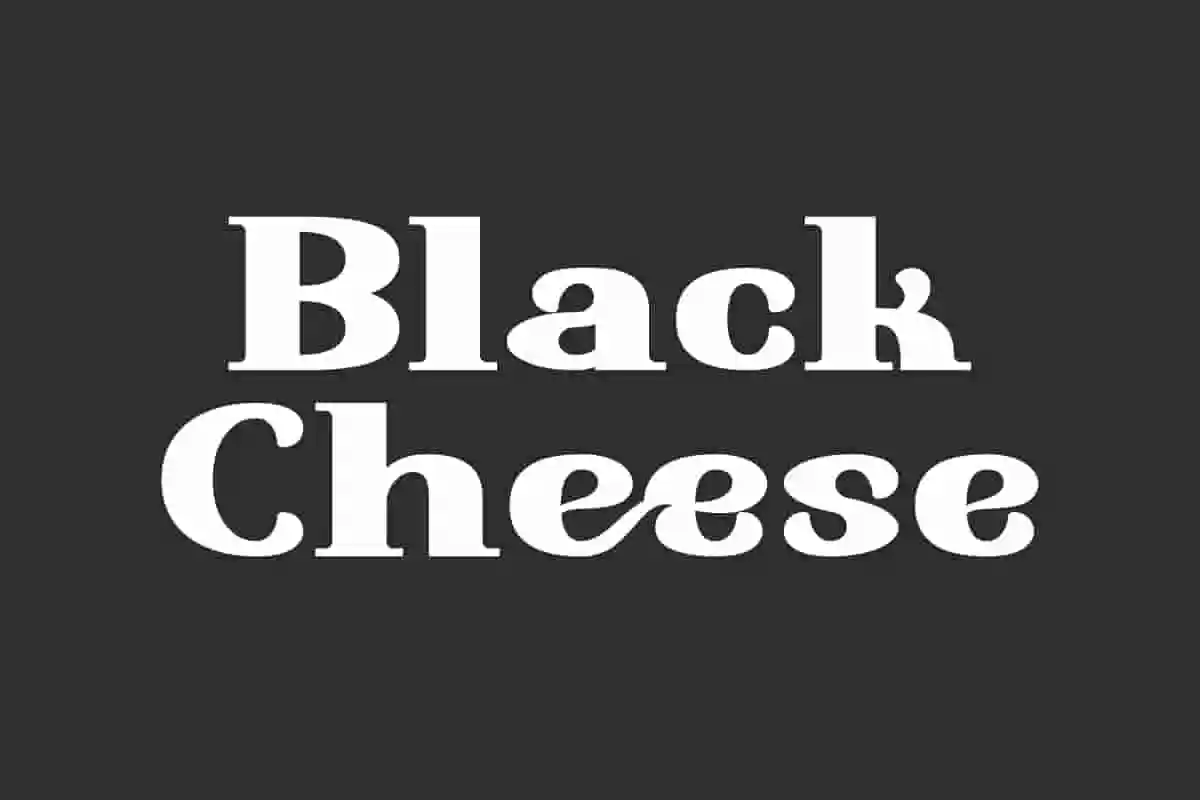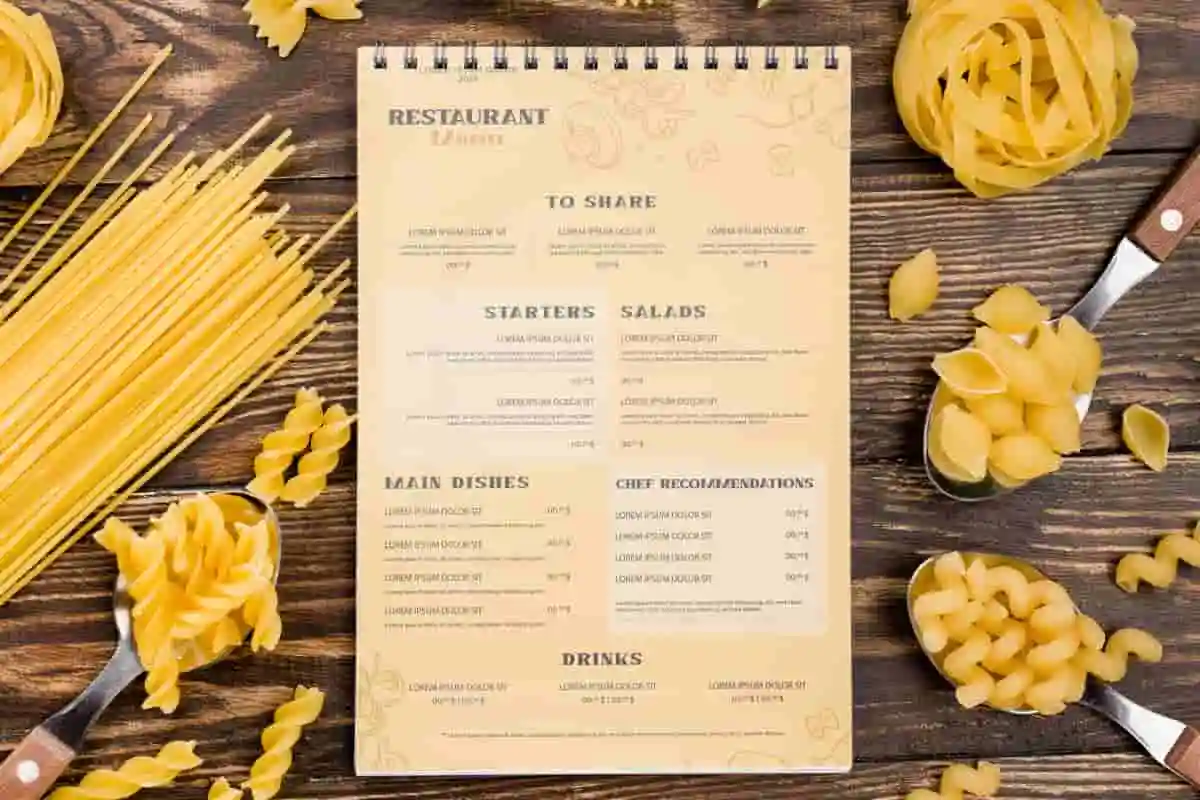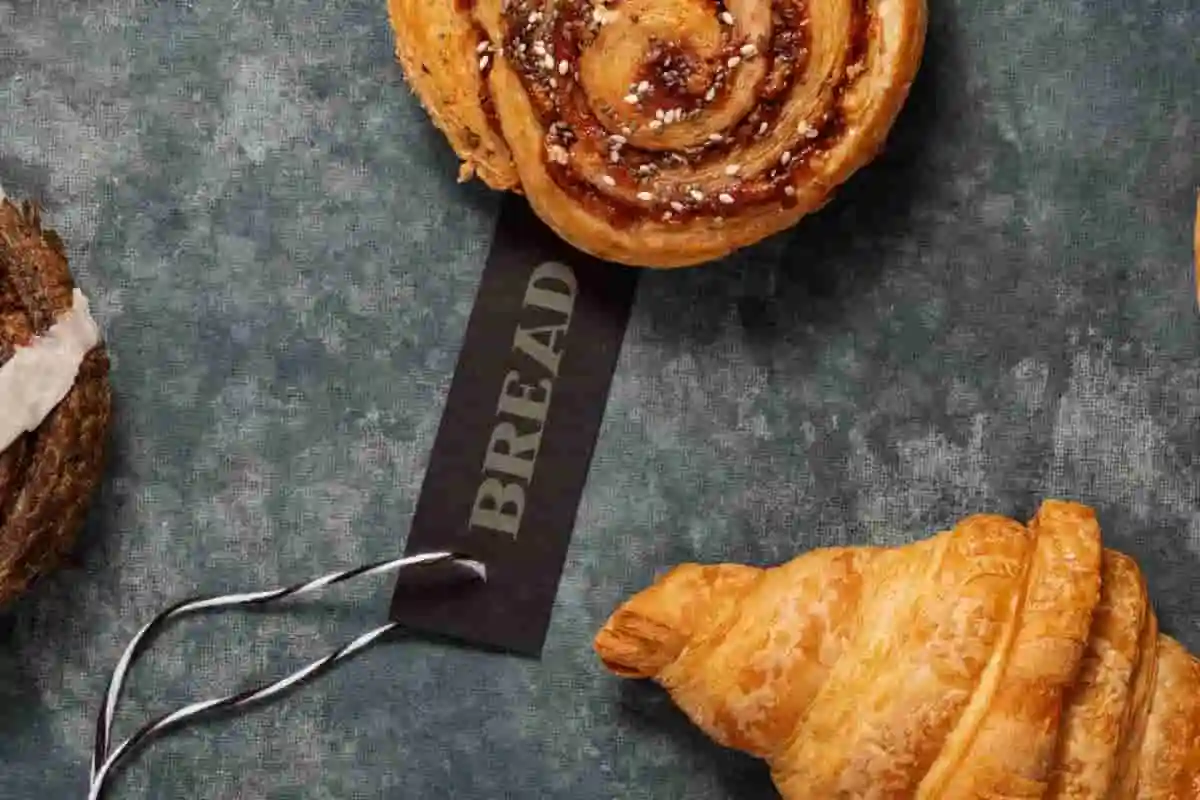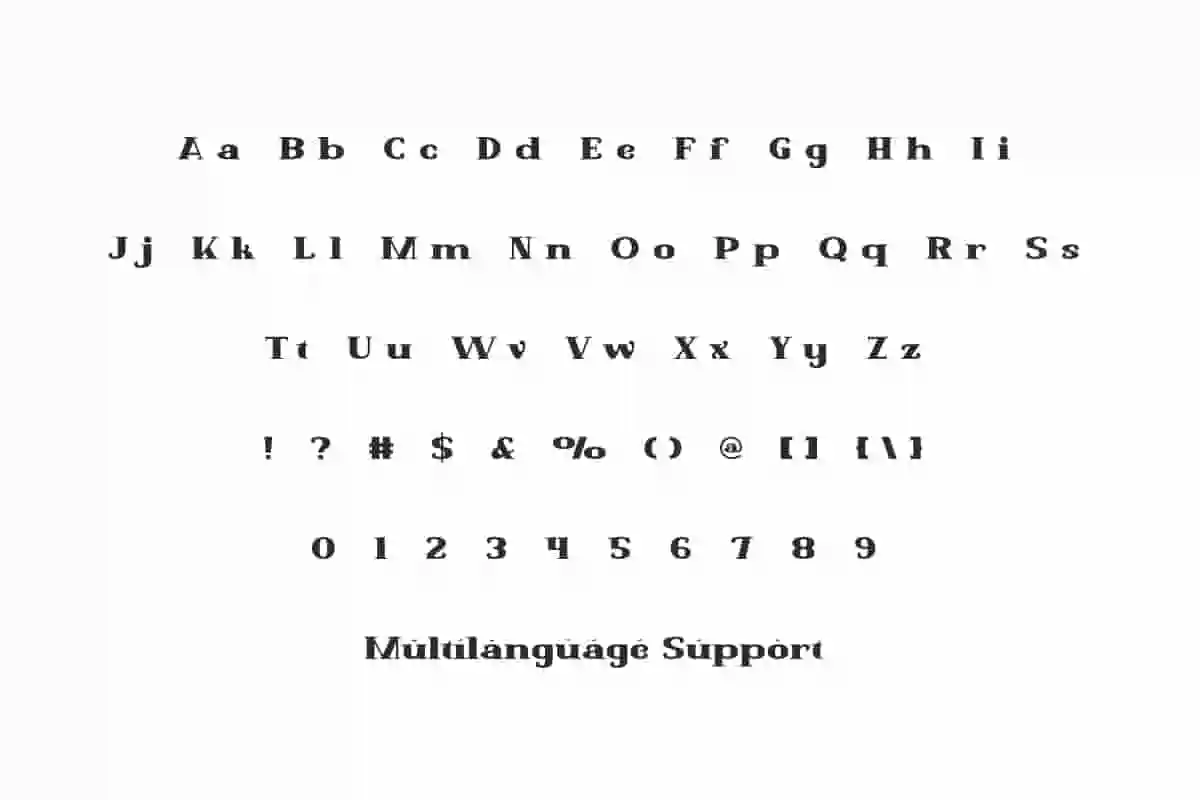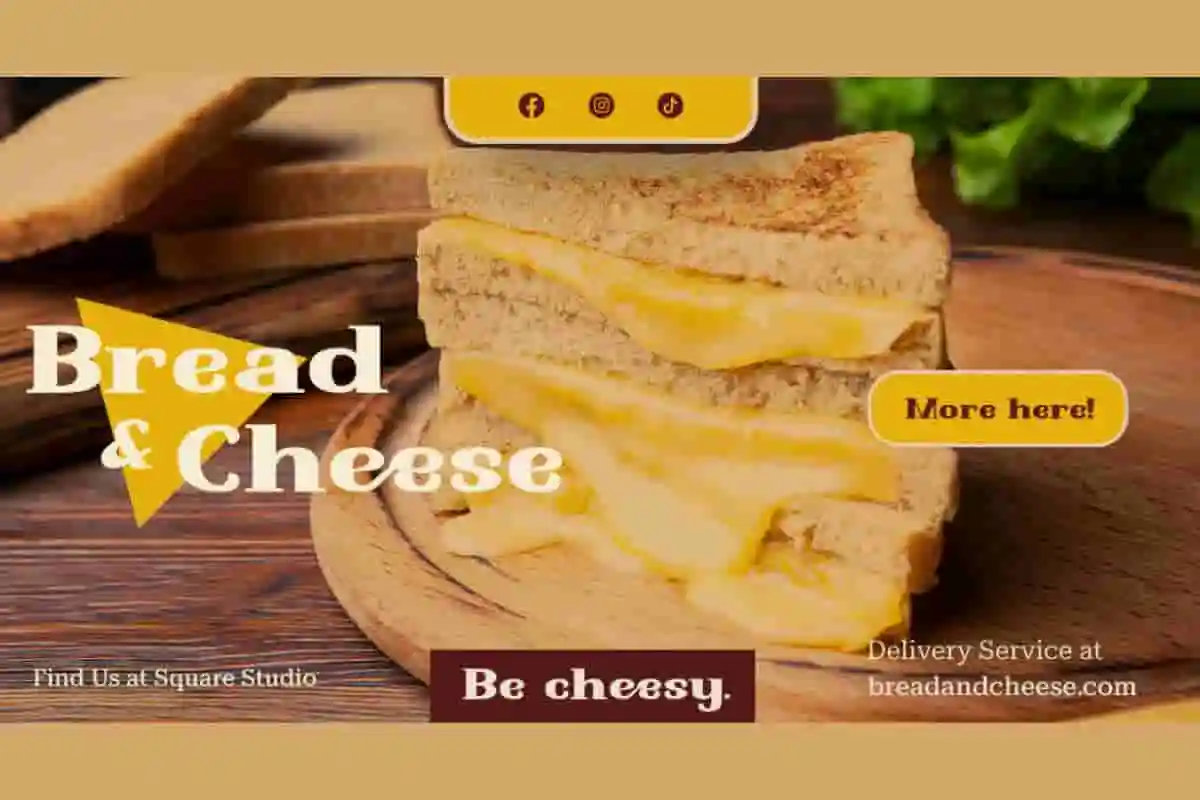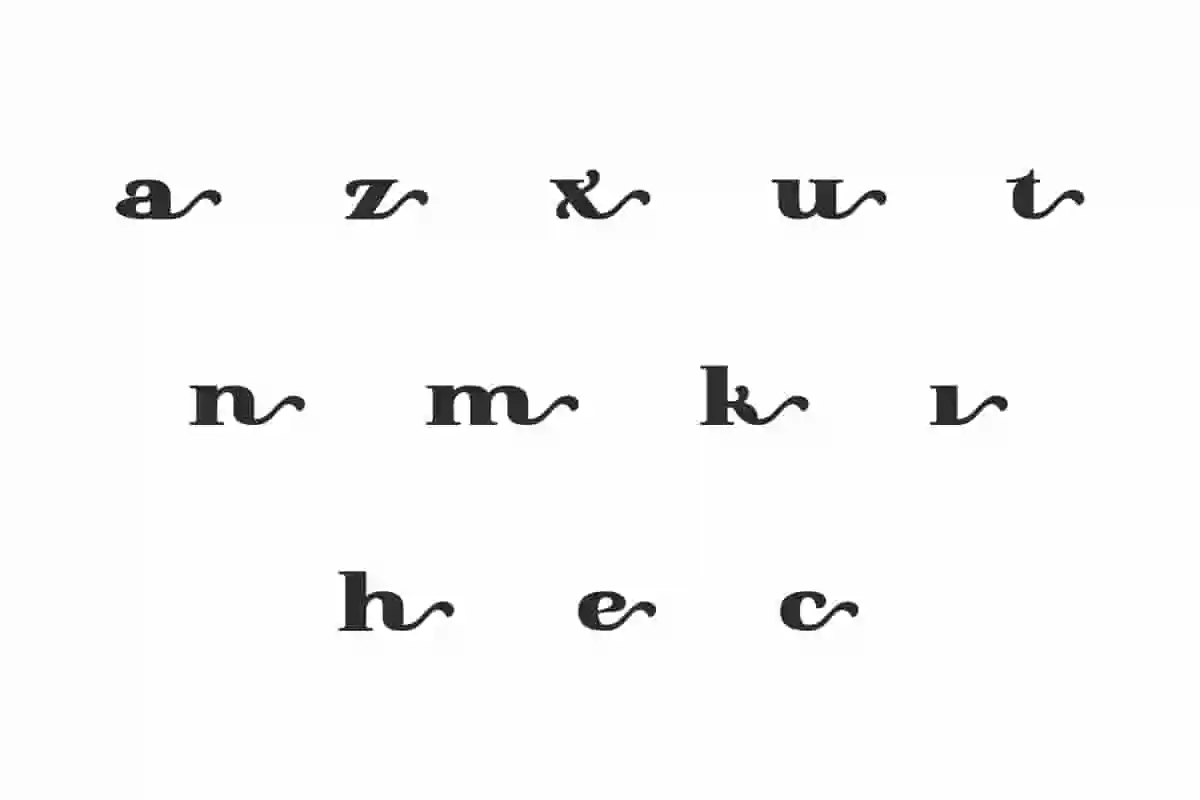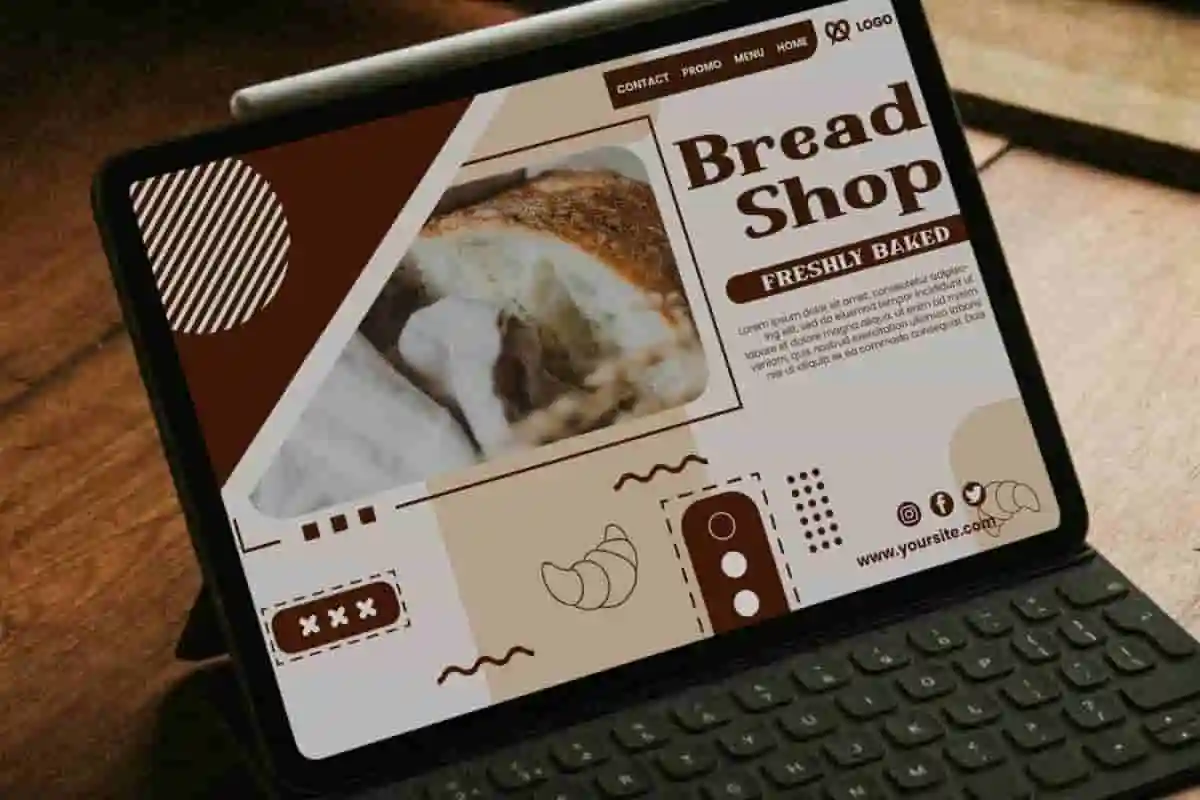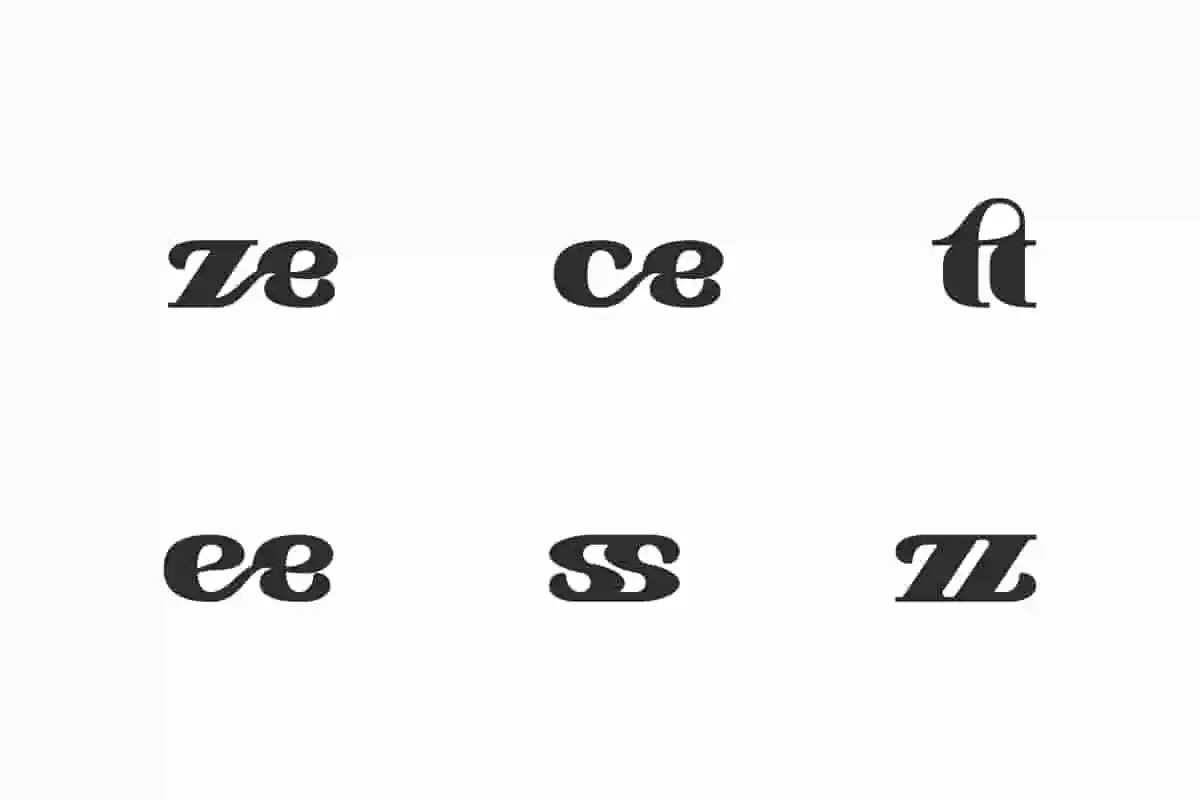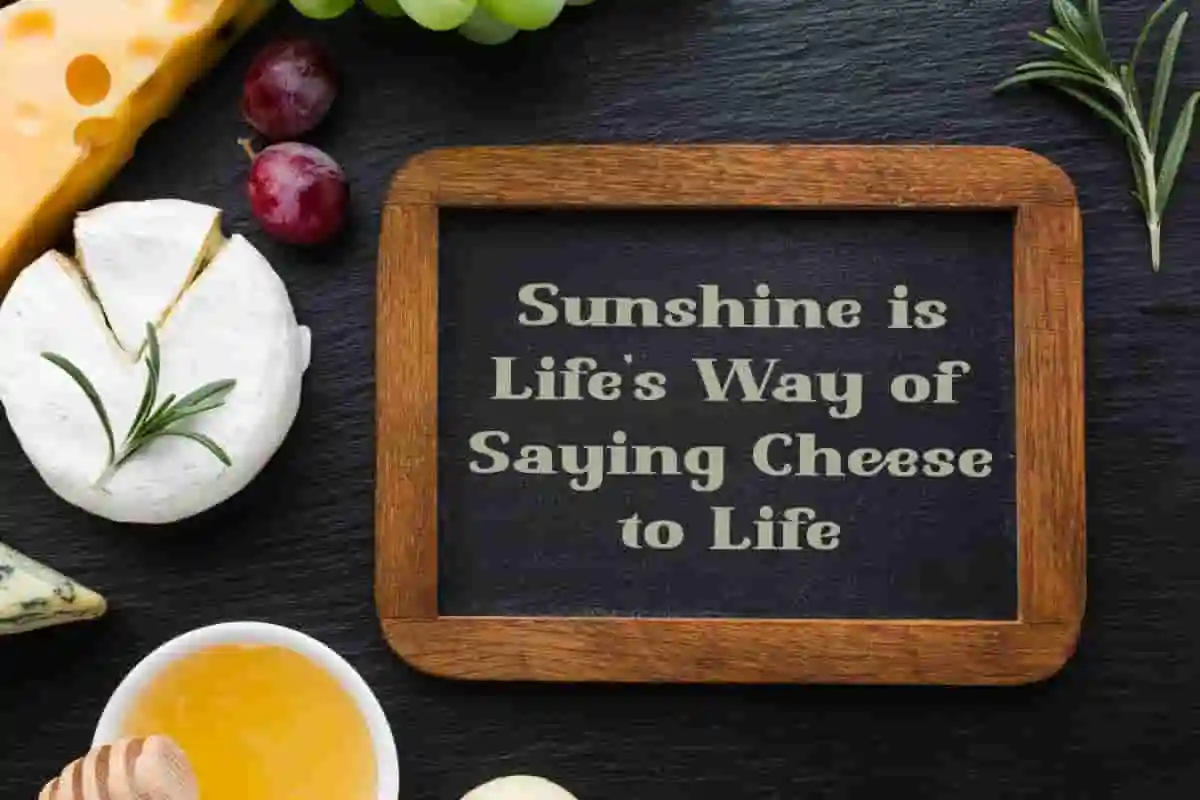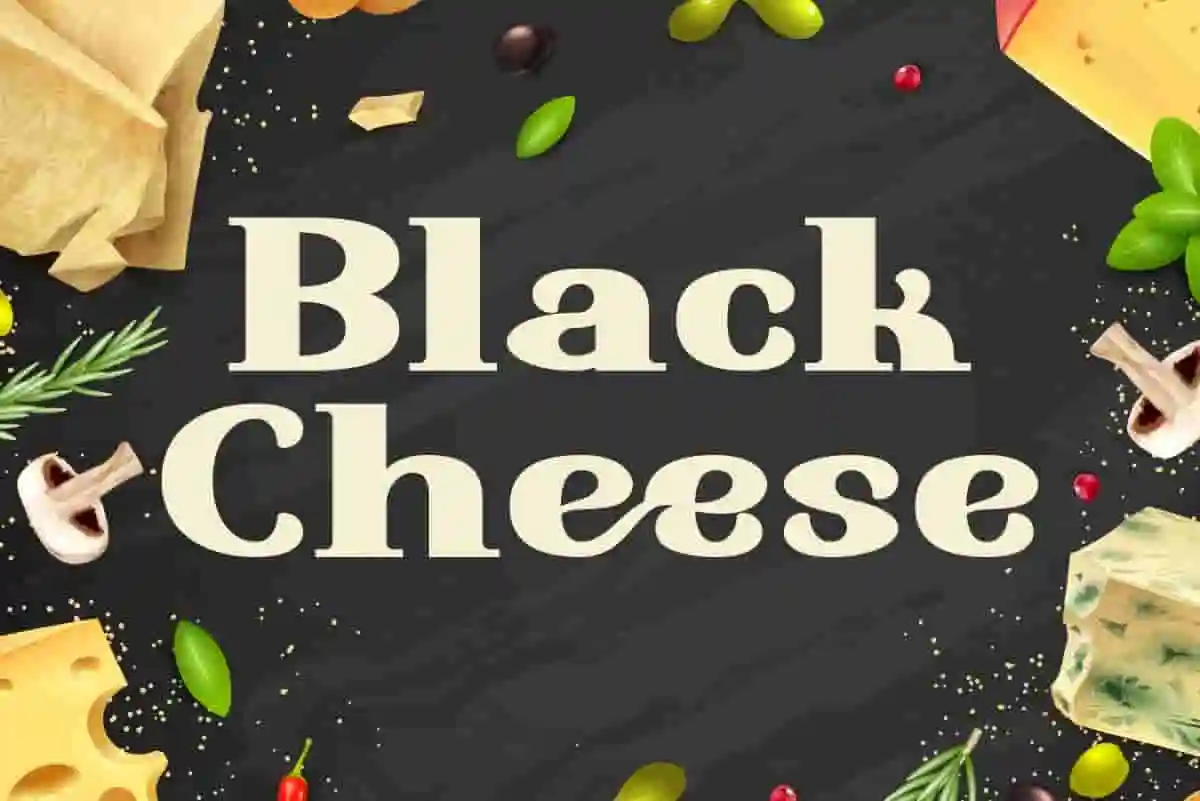
Black Cheese – Bold & Playful Display Font with Sans & Serif Styles
Add Character and Charm with Black Cheese Font
Looking for a unique font that combines boldness with playful creativity? Black Cheese is the perfect choice. This eye-catching display font masterfully blends the clean, modern appeal of sans serif with the classic touch of serif, giving your designs a fresh and memorable personality.
Versatile for Various Creative Projects
Black Cheese stands out with its thick, dynamic strokes and quirky details that add fun and character to your work. Whether you’re designing logos, posters, packaging, or social media graphics, this font is sure to capture attention and make your message unforgettable.
Black Cheese Font is a classic yet playful and adorable serif display font. This font is still easy to read even though it has fat and cute letter characters. It would be good for brand logo, headline, invitation, magazine cover, menu, poster, product packaging, screen print, signage, social media posts, stationery, sticker, website, and more!
Black Cheese Font includes full set for Uppercase and Lowercase Basic Characters, Numbers, Punctuation and Symbols. This font also contain Ligature and Alternate characters to create the perfect font so that it will be suitable for advertisement, bakery, beauty product, cafeteria, crafts, fashion, photography, restaurant, spa, travel agency, etc.